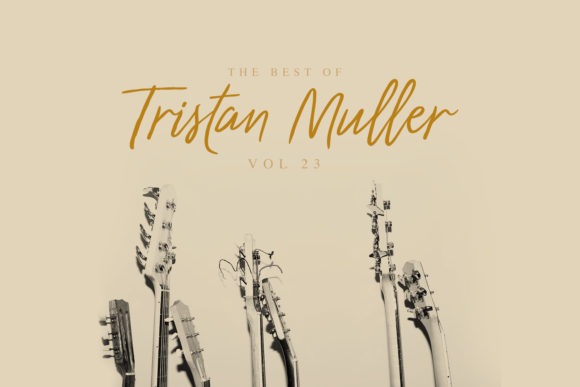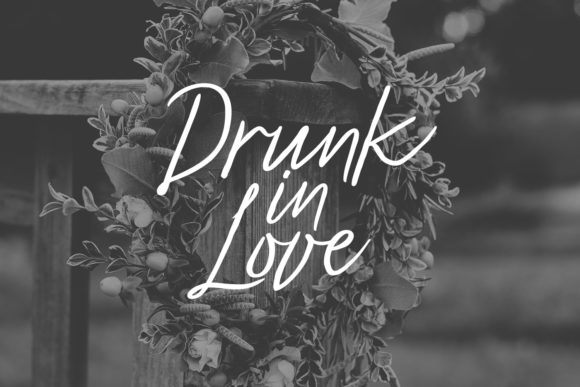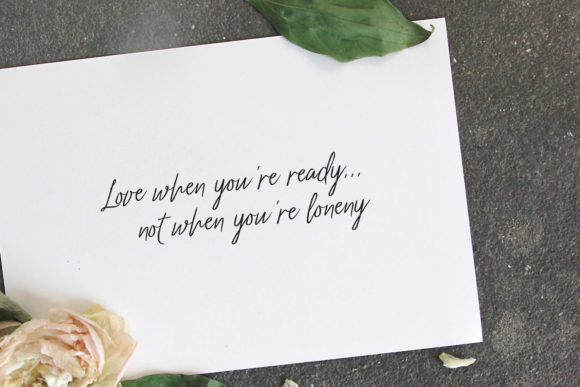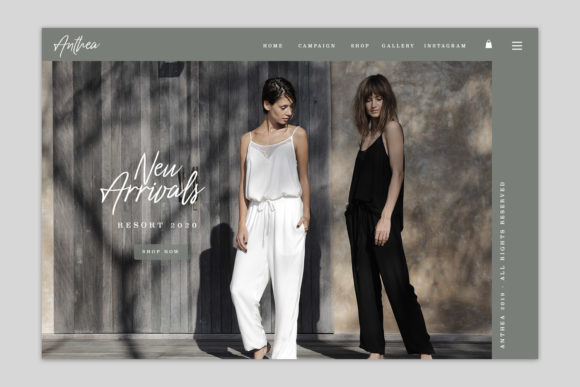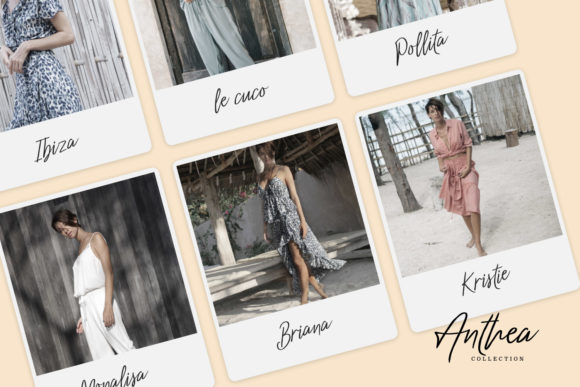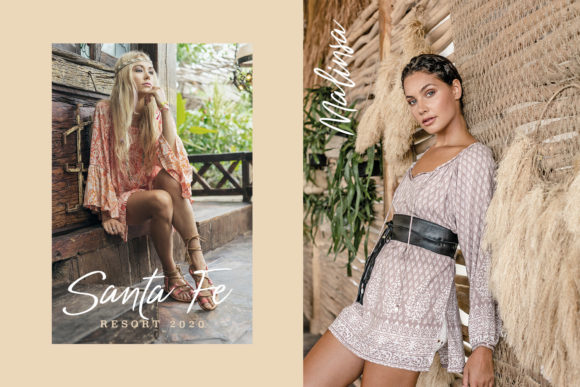
Discover the Bold Charm of Fabienne Font: A Strong and Natural Script for Your Creative Projects
Are you tired of using the same old fonts for your design projects? Look no further than Fabienne Font, a stunning script font that is sure to add a touch of elegance and sophistication to any creative endeavor. With its strong and natural organic letters, Fabienne is the perfect choice for designers and crafters looking to add some bold charm to their work.
What is Fabienne Font?
Fabienne Font is a beautiful script font that features organic letters with a strong and natural feel. Its unique design makes it stand out from other fonts, and its versatility ensures that it can be used for a wide range of creative projects, from branding and advertising to crafting and DIY tutorials.
Characteristics of Fabienne Font
So, what makes Fabienne Font so special? Here are just a few of its key characteristics:
- Strong and natural organic letters: Fabienne Font features letters that are both strong and natural, with a organic feel that gives them a unique and charming personality.
- Bold charm: Fabienne Font has a bold charm that is sure to grab attention and add a touch of sophistication to any design project.
- Versatile: Fabienne Font can be used for a wide range of creative projects, from formal and professional designs to more casual and playful ones.
- Elegant and sophisticated: Fabienne Font has an elegant and sophisticated feel that makes it perfect for designs that require a touch of luxury and refinement.
Why Use Fabienne Font?
So, why should you use Fabienne Font for your design projects? Here are just a few reasons:
- Add a touch of elegance and sophistication: Fabienne Font is the perfect choice for designers and crafters looking to add a touch of elegance and sophistication to their work.
- Stand out from the crowd: With its unique and bold design, Fabienne Font is sure to help your design projects stand out from the crowd.
- Easy to read: Despite its bold and decorative design, Fabienne Font is easy to read, making it perfect for designs that require a clear and concise message.
- Versatile: Fabienne Font can be used for a wide range of creative projects, from formal and professional designs to more casual and playful ones.
How to Use Fabienne Font
So, how can you use Fabienne Font in your design projects? Here are a few ideas:
- Branding and advertising: Use Fabienne Font to create bold and eye-catching logos, advertisements, and marketing materials.
- Crafting and DIY tutorials: Add a touch of elegance and sophistication to your crafting and DIY tutorials with Fabienne Font.
- Wedding and event planning: Use Fabienne Font to create beautiful and elegant wedding invitations, party decorations, and other event materials.
- Graphic design: Use Fabienne Font to add a touch of bold charm to your graphic design projects, from brochures and flyers to posters and banners.
Tips and Tricks for Using Fabienne Font
Here are a few tips and tricks for using Fabienne Font in your design projects:
- Use it sparingly: While Fabienne Font is a beautiful and elegant font, it can be overwhelming if used too much. Use it sparingly to add a touch of bold charm to your designs.
- Pair it with other fonts: Fabienne Font pairs well with other fonts, such as sans-serif fonts and serif fonts. Experiment with different font combinations to find the perfect look for your design project.
- Experiment with different colors: Fabienne Font looks great in a variety of colors, from bold and bright colors to more muted and subtle ones. Experiment with different colors to find the perfect look for your design project.
| Font Name | Fabienne Font |
| Author | creativemedialab |
Fabienne Font is a stunning script font that is sure to add a touch of elegance and sophistication to any design project. With its strong and natural organic letters, bold charm, and versatility, Fabienne Font is the perfect choice for designers and crafters looking to add some bold charm to their work. Whether you’re working on a branding and advertising project, a crafting and DIY tutorial, or a graphic design project, Fabienne Font is sure to inspire and impress.